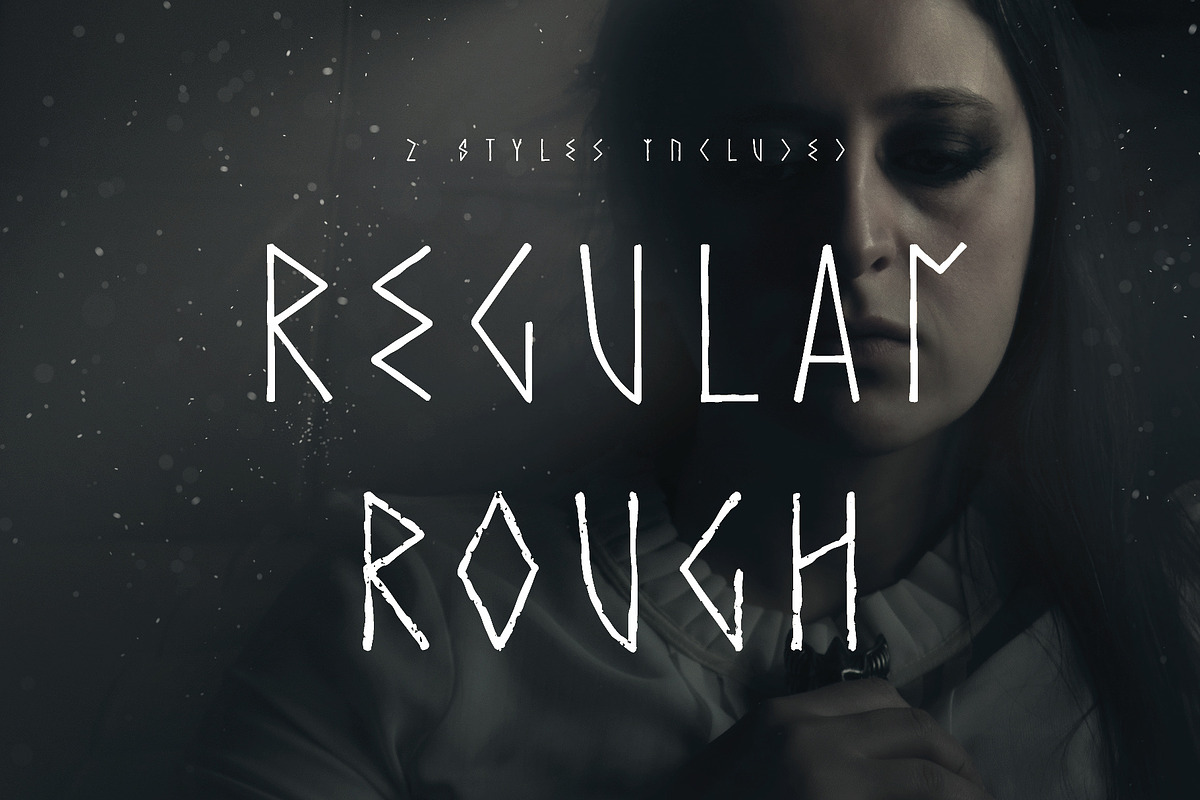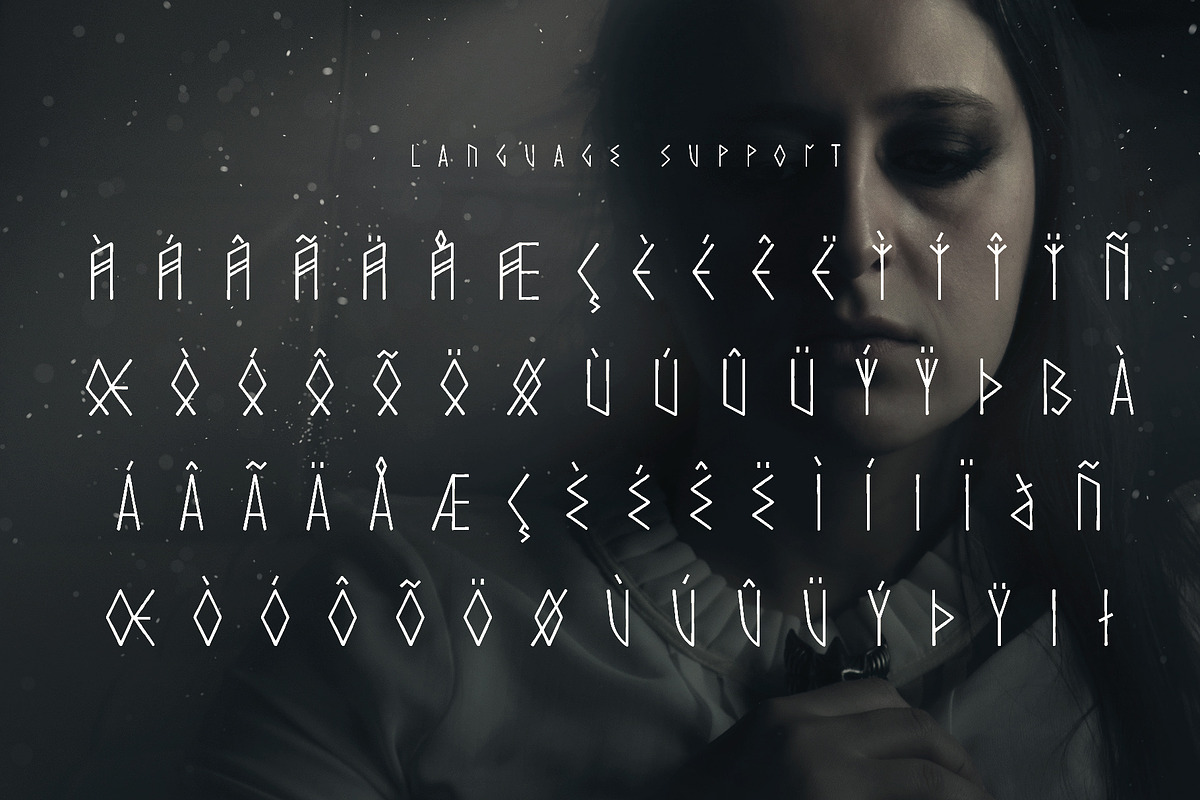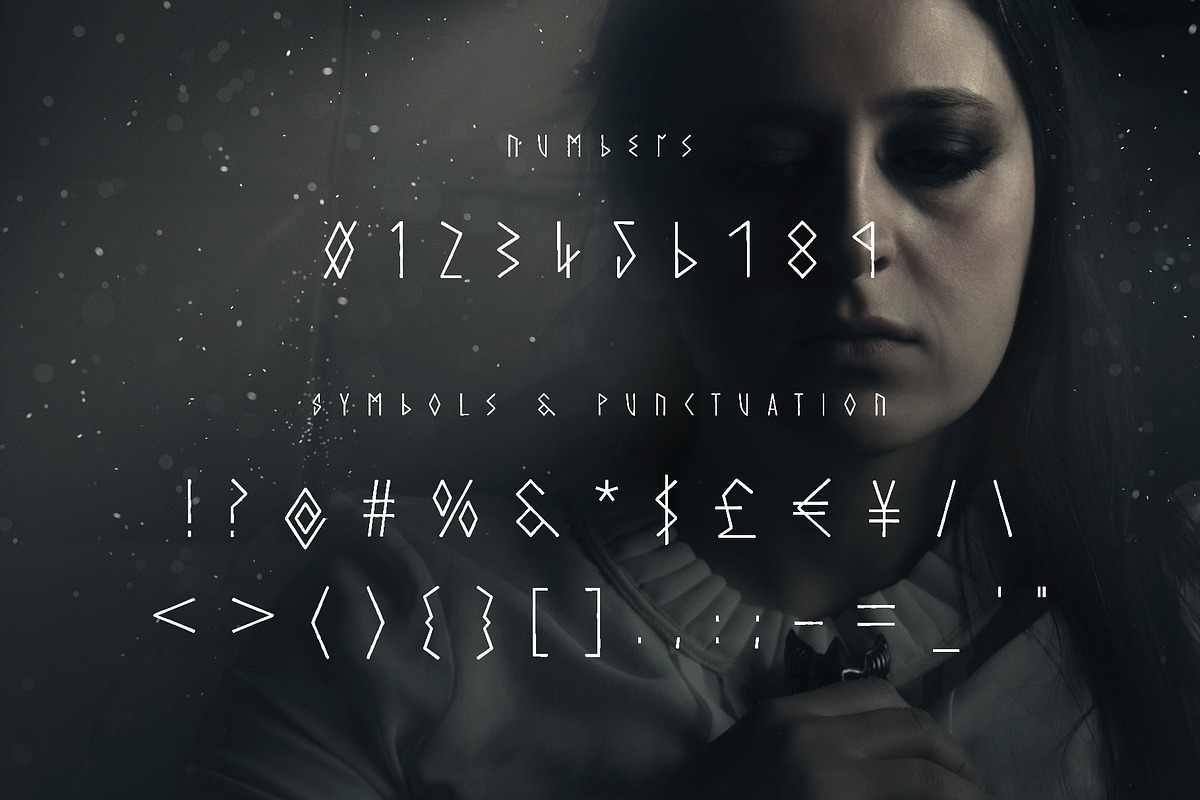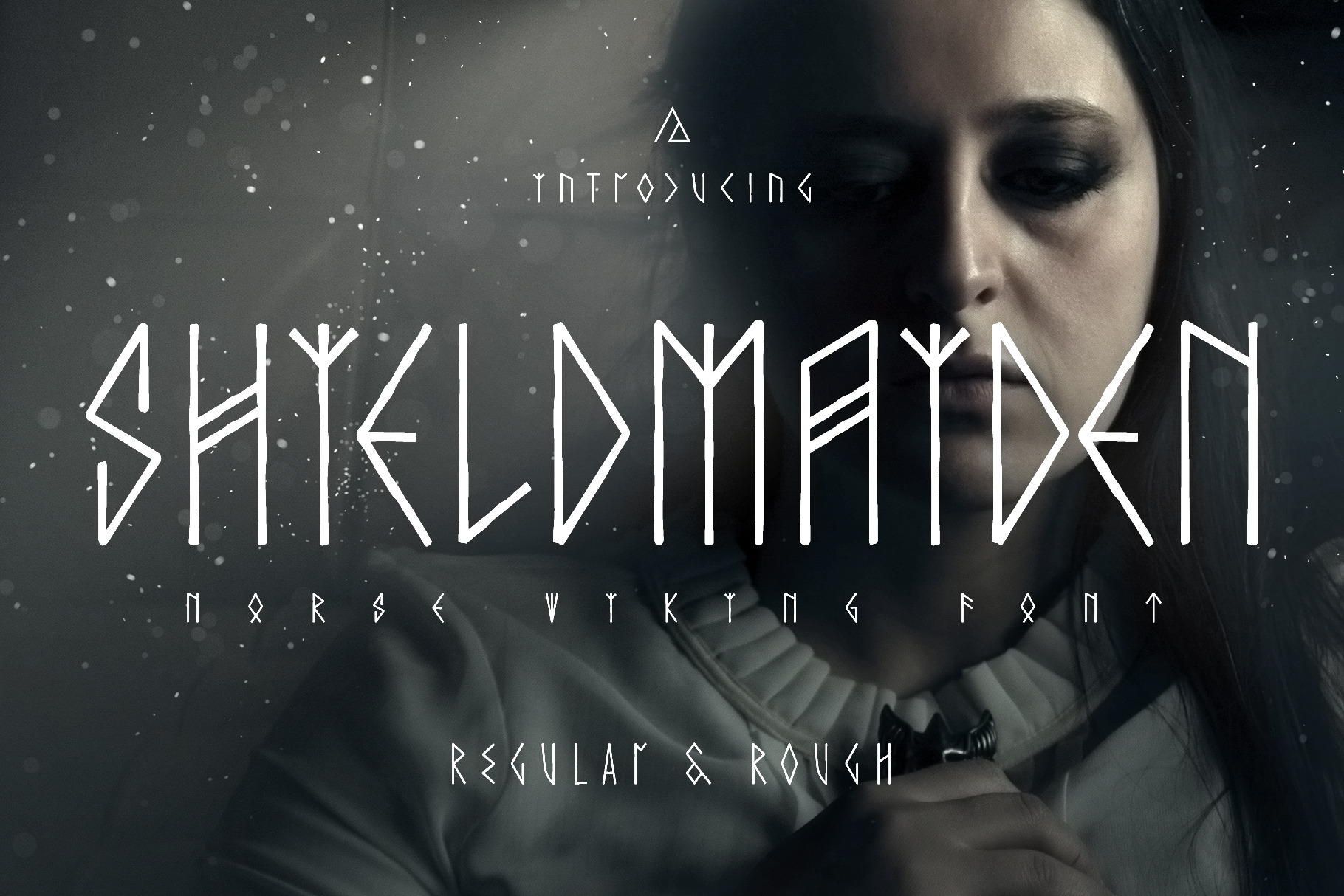
Shieldmaiden - Norse Viking Font
Shieldmaiden is inspired by ancient nordic runes, and combines traditional latin glyphs with elder futhark styling. It is perfect for display purposes, in particular headlines and it should go without saying that it is most suited for projects relating to vikings or norse mythology.
As well as having regular and distressed rough versions of the font, each letter also has 2 variations which can mix and matched by switching between upper and lowercase glyphs.
- Regular and Rough variations
- All uppercase letters (A-Z)
- Alternate lowercase letters (a-z)
- All numbers (0-9)
- Common symbols and punctuation
- Accented letters and symbols